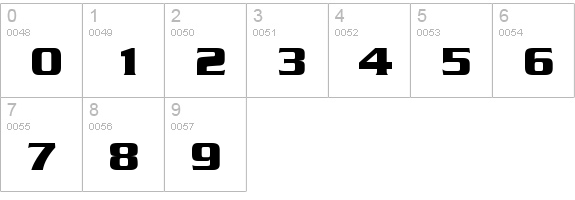
Serpentine Bold is a strong, high-contrast variant in the Serpentine typeface family \xE2\x80\x94 well suited to headlines, attention-grabbing titles, and strong calls-to-action.
Introducing Serpentine Bold, a captivating and versatile font that effortlessly combines modern aesthetics with a touch of classic elegance. With its bold and dynamic letterforms, Serpentine Bold commands attention and adds a sense of confidence to any design project. This remarkable typeface boasts a unique blend of sharp edges and smooth curves, creating a visually striking impact that is both powerful and refined. Its strong presence on the page makes it ideal for headlines, titles, and attention-grabbing designs. Whether you're designing a logo, poster, or website, Serpentine Bold will infuse your work with a bold and unforgettable personality. One of the most remarkable aspects of Serpentine Bold is that it is available for free download exclusively at FontsMarket.com. This means that designers and enthusiasts alike can access this extraordinary font without any cost, making it an invaluable resource for both personal and commercial projects. With Serpentine Bold, you can unleash your creativity and explore endless possibilities. Its versatility allows it to seamlessly adapt to various design styles, from modern and minimalist to vintage and retro. The wide range of characters and glyphs ensures that you can effortlessly express your ideas and convey your message with clarity and impact. Elevate your designs to new heights with Serpentine Bold. Download this exceptional font today at FontsMarket.com and experience the power and elegance it brings to your creative endeavors. Embrace the freedom of Serpentine Bold and let your imagination run wild.